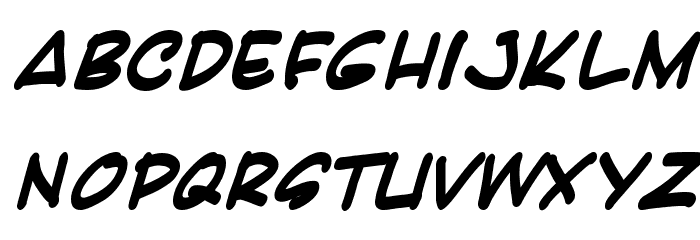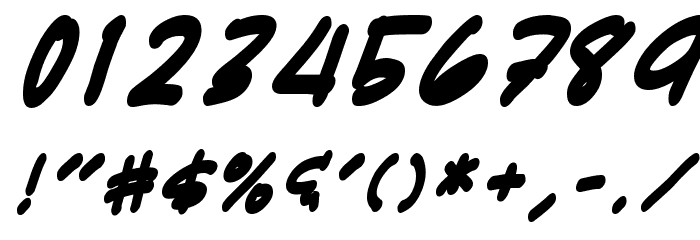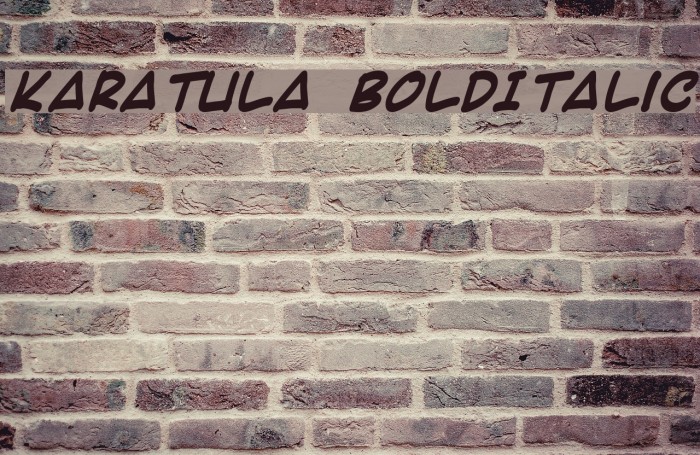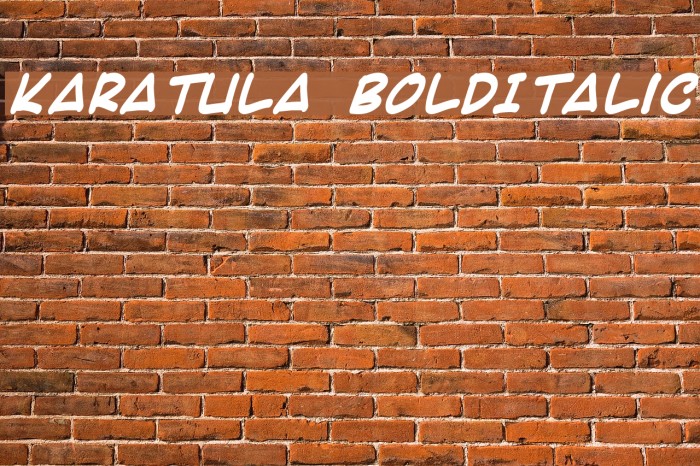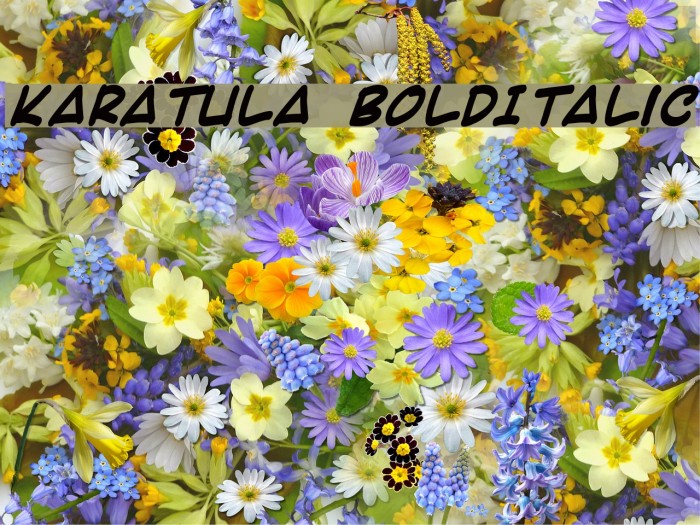
Karatula BoldItalic Font
This font features a bold and italic style with a handwritten, cursive appearance. The letters are slanted, giving a dynamic and energetic look. The strokes are thick and consistent, providing a strong visual impact. The characters have a playful and informal feel, making them suitable for creative and casual designs. The numbers and special characters maintain the same bold and flowing style, ensuring uniformity across all elements.
A bold, italic, handwritten font with a dynamic and playful style.
- Proposed Projects: Ideal for greeting cards, posters, logos, and creative branding projects.